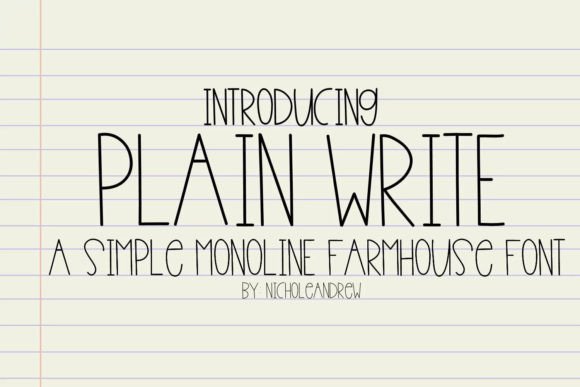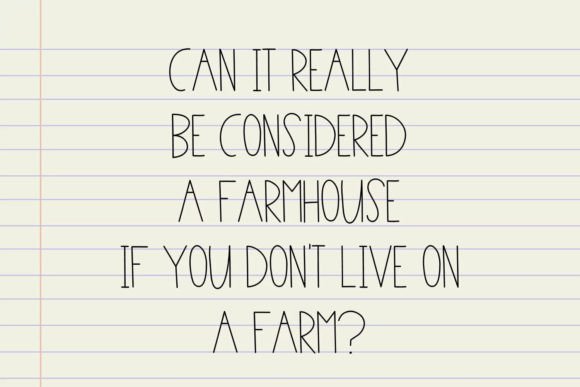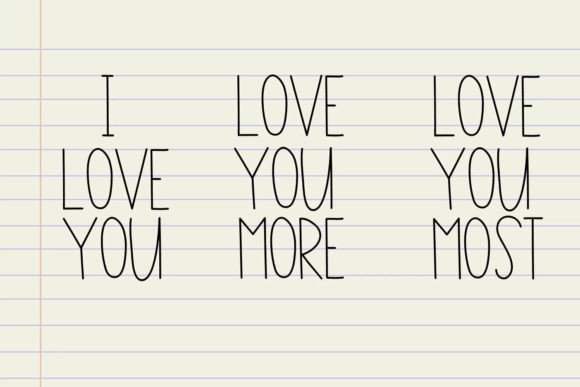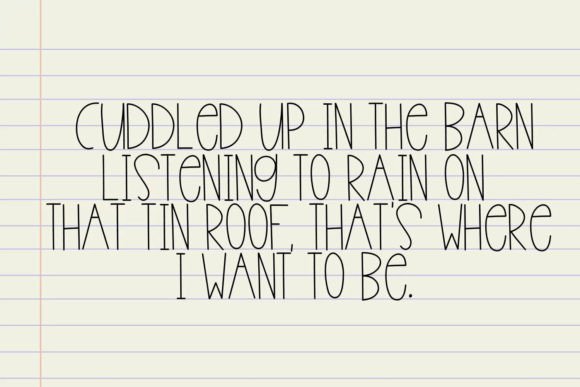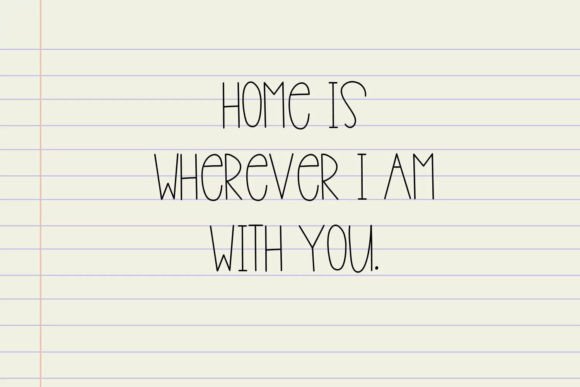
Plain Write Font
“Introducing Plain Write, a delightful handwritten font that brings a touch of fun to your creative projects. Plain Write is a simple, tall, monoline farmhouse font that adds a charming and rustic feel to your designs. This versatile font is ideal for a range of applications, from decals and notebooks to t-shirts, picture frames, and more! Plus, Plain Write is optimized with nodes, making it perfect for cutting machines.
The simplicity of Plain Write adds to its appeal, making it a great choice for inspired farmhouse decor. Whether you’re working on DIY crafts, home decor projects, or personalized items, Plain Write can bring a touch of rustic charm to your creations.
The tall and monoline design of Plain Write gives it a clean and modern farmhouse aesthetic. It’s well-suited for a variety of projects where a simple yet stylish font is desired. Use it on decals for a personalized touch, on notebooks for a rustic look, on t-shirts for trendy apparel designs, or on picture frames for farmhouse-inspired decor.
One of the standout features of Plain Write is its optimized nodes, making it perfect for cutting machines. If you’re working with vinyl, paper, or other materials that require precision cuts, Plain Write ensures clean and accurate results, enhancing the overall professional appearance of your projects.
Whether you’re a crafter, a DIY enthusiast, or a designer, Plain Write is a versatile font ready to bring a touch of farmhouse charm to your creative endeavors. Explore the possibilities and use Plain Write to add character and style to your projects with ease.
In summary, Plain Write is more than just a font; it’s a farmhouse-inspired design tool that combines simplicity and charm. With its optimized nodes for cutting machines, this font is perfect for a range of applications, allowing you to create personalized and stylish items for your home or business.”